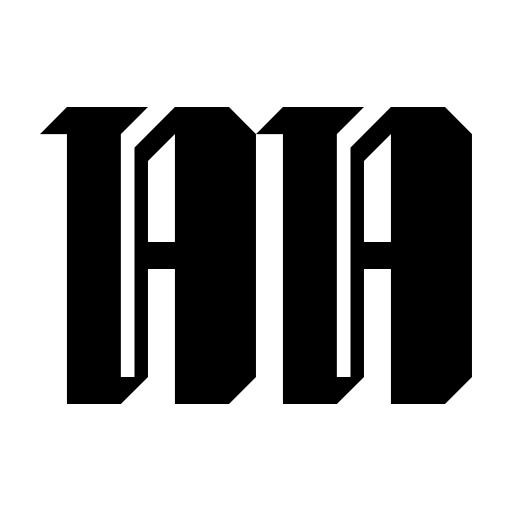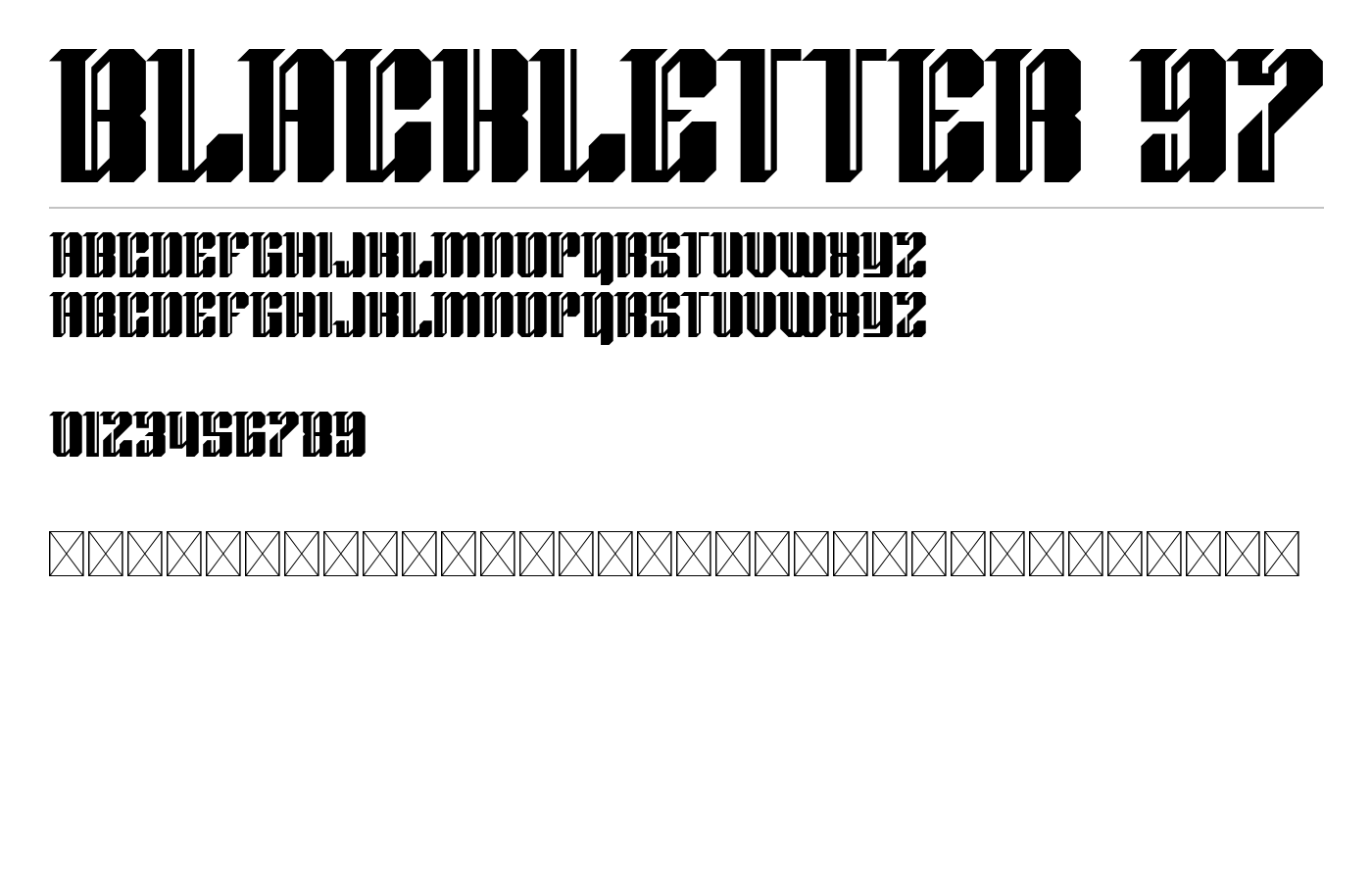
Blackletter 97 is a bold and condensed blackletter font with heavy, angular strokes that create a strong, gothic appearance. Its high contrast between thick and thin lines and sharp, geometric shapes make it stand out for impactful headlines and decorative uses, especially suited for designs aiming to evoke a vintage or medieval feel with a modern twist. This font works well for posters, logos, and branding that desire a dramatic and historic aesthetic.
Blackletter 97 Font
About Blackletter 97 Font
| Font family | Blackletter 97 Font |